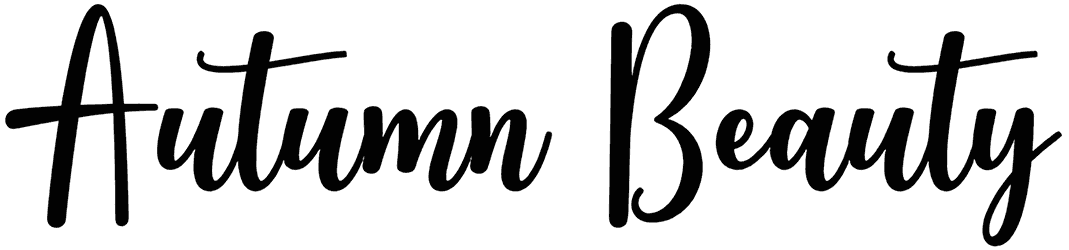
Autumn Beauty Font
Shake your leg and decorate your typography scheme with a gorgeous and adorable spirit, and receive the most delightful feedback with the manuscript face. This Autumn font will throw a natural and friendly vibe into your designs.